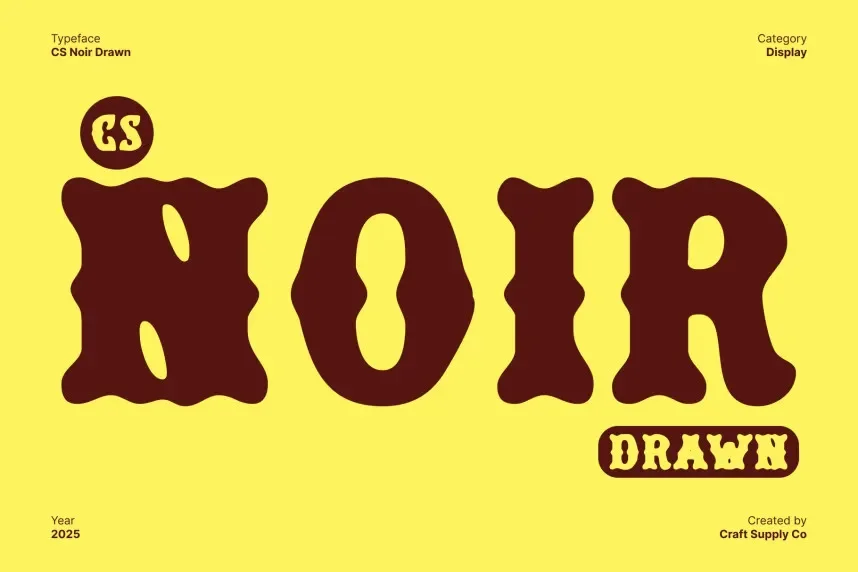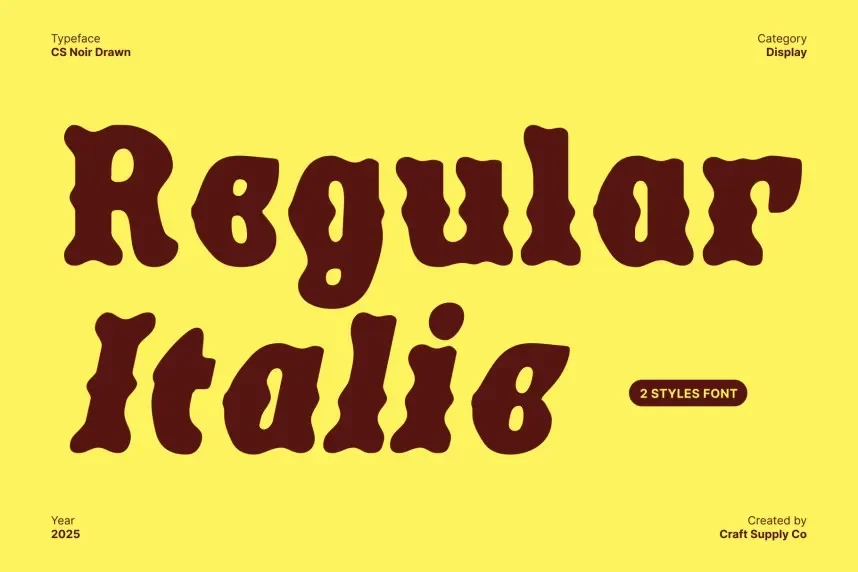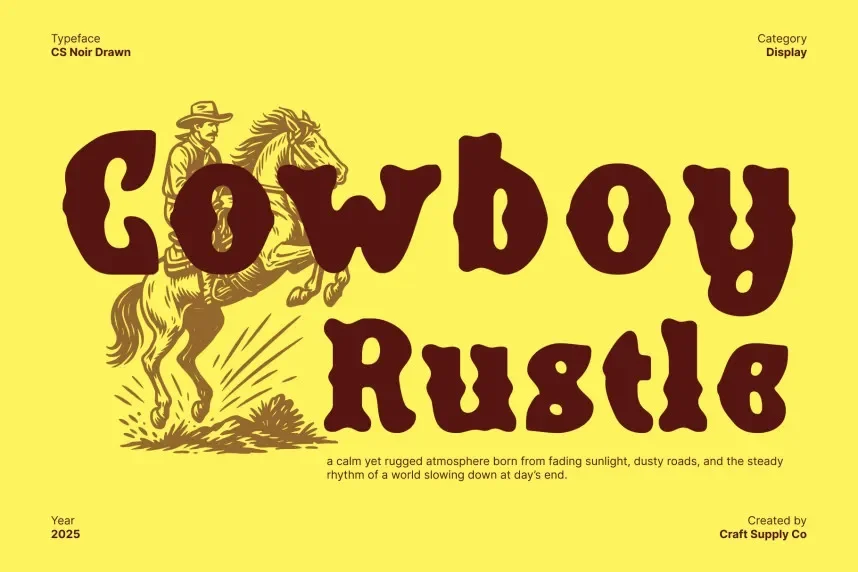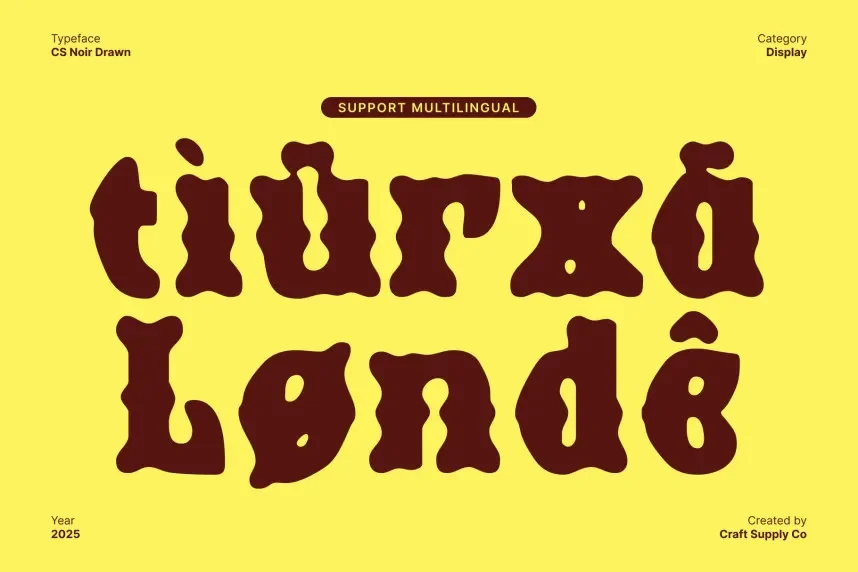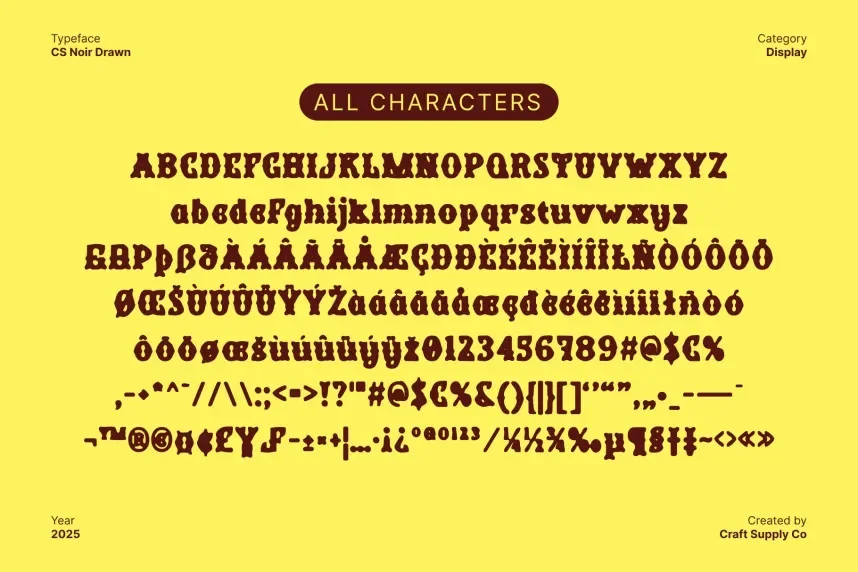
CS Noir Drawn Font is a sleek, modern typeface designed with a minimalist approach. Its clean, straight lines and geometric forms give it a professional, contemporary look that is perfect for corporate branding, websites, and sophisticated product packaging.